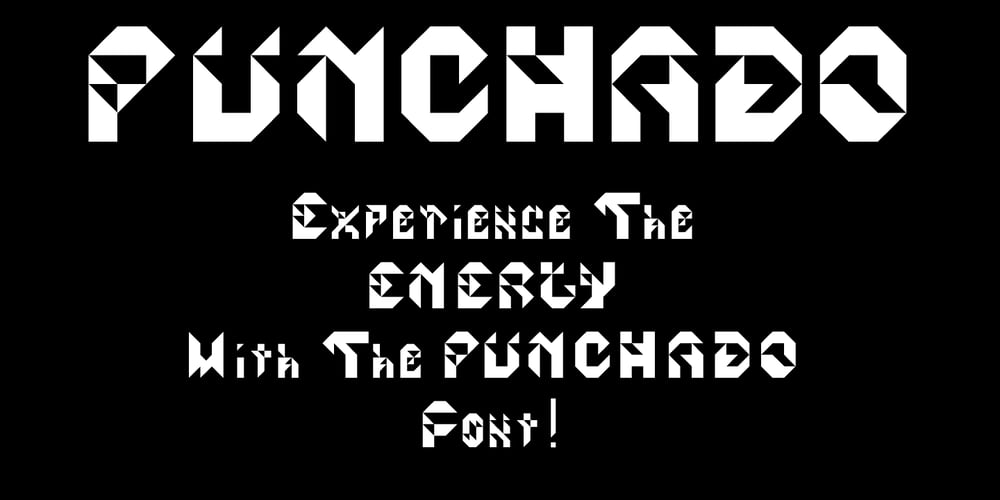
Punchado Font Family was designed by Ted Lau and published by MyAnvil. Punchado contains 1 styles and family package options. This font titled “Punchado” original was designed in light of its sharp angels and bold impact type. This font would theme in the realm of: engineering, technology, science fiction, science, futures, etc… This font could be described as energetic, and motivational.